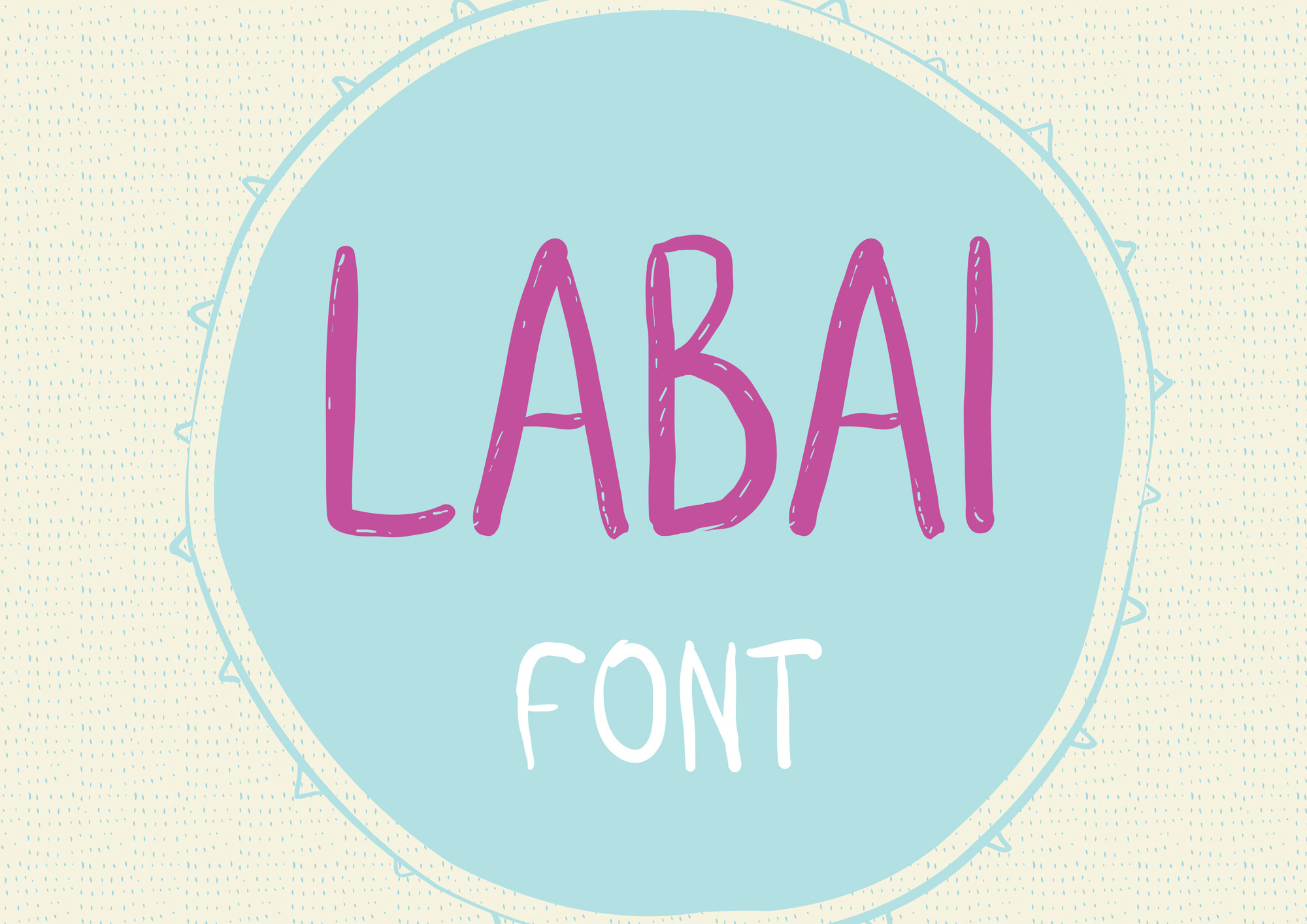
Labai font
Labai is an Hand-drawn Brush Font, it comes in both option rustic and clean shape. It's great for design, element design, events, t-shirts, logos, badges, stickers and summer holiday themes!